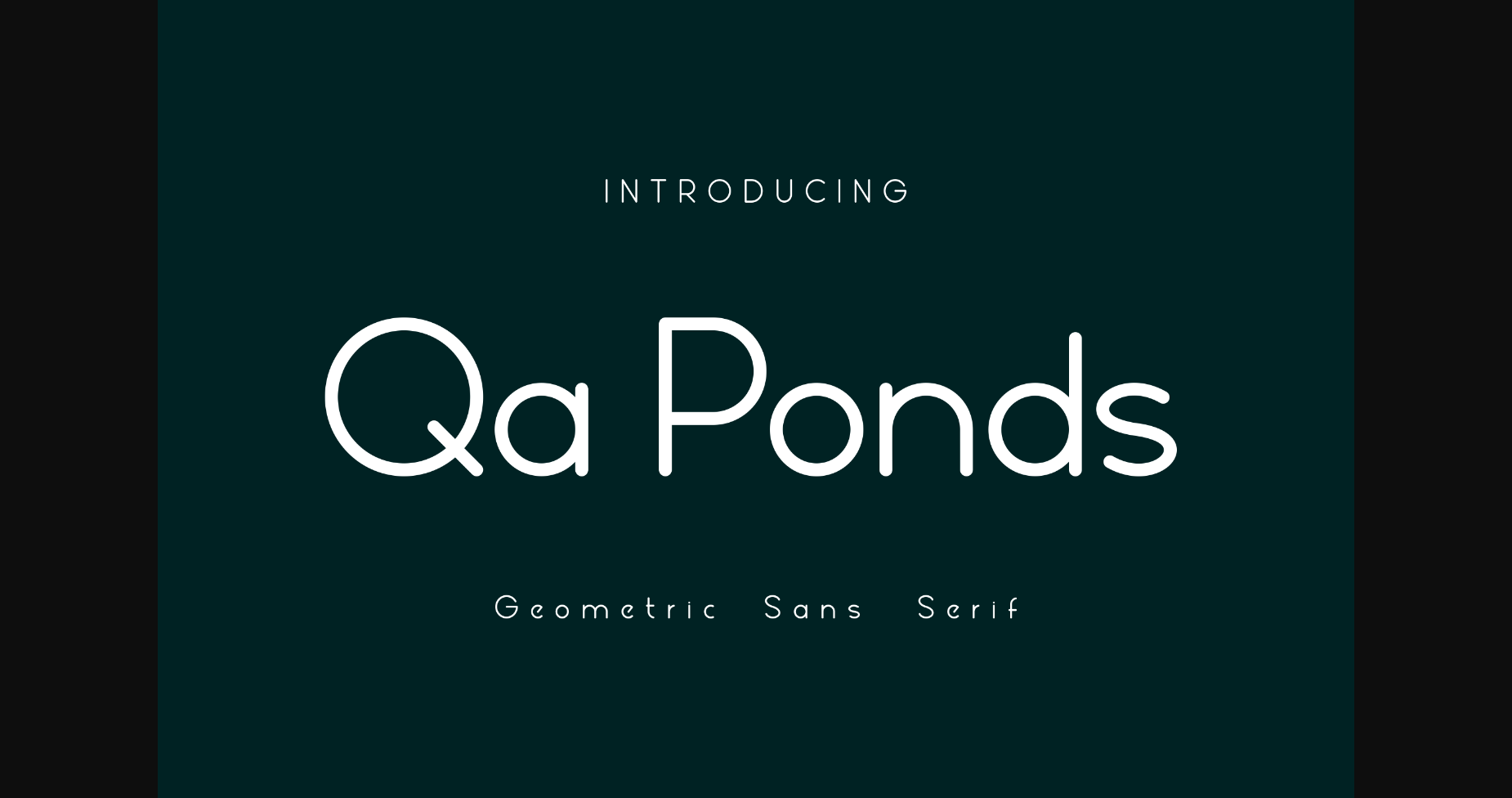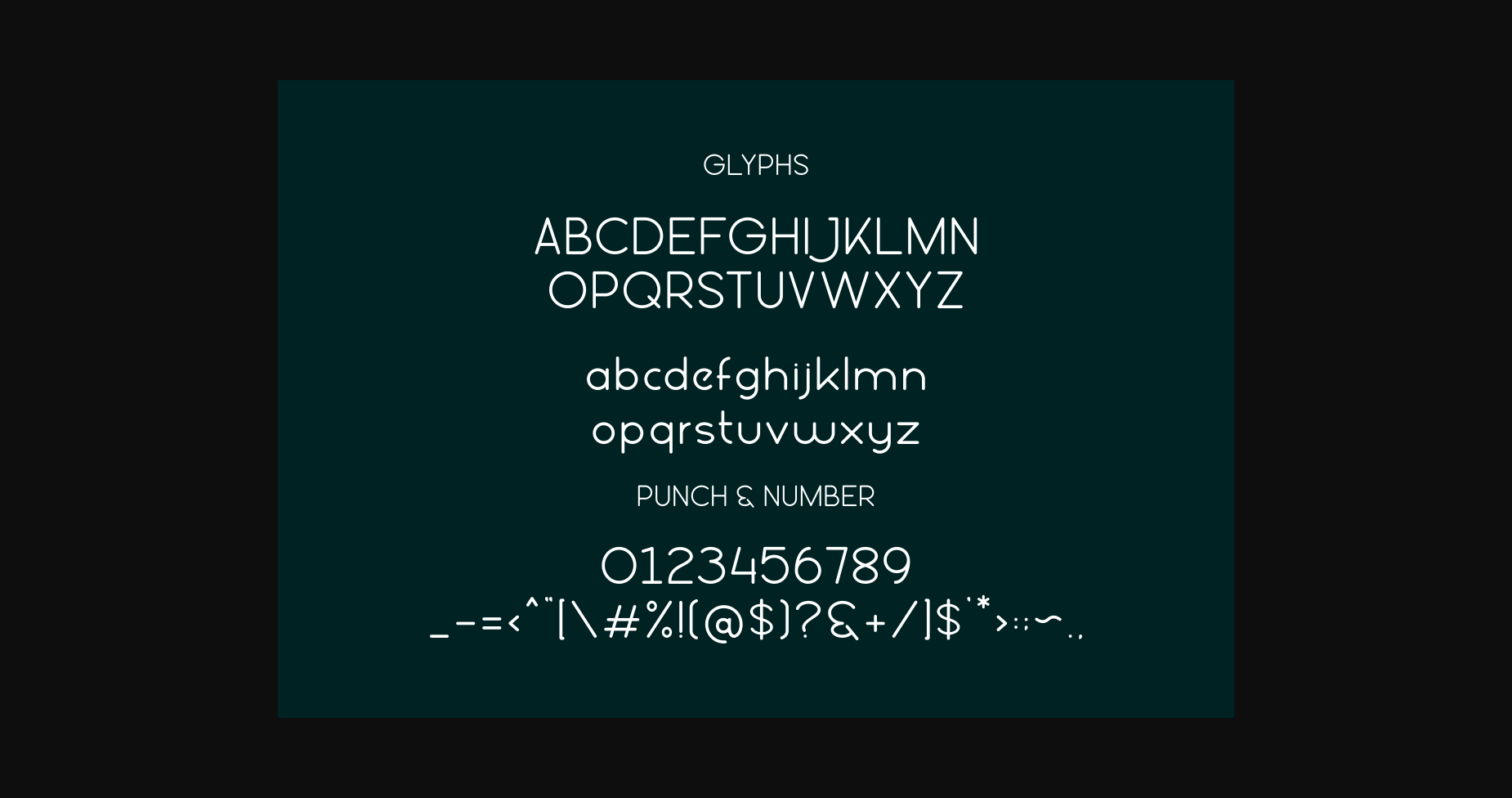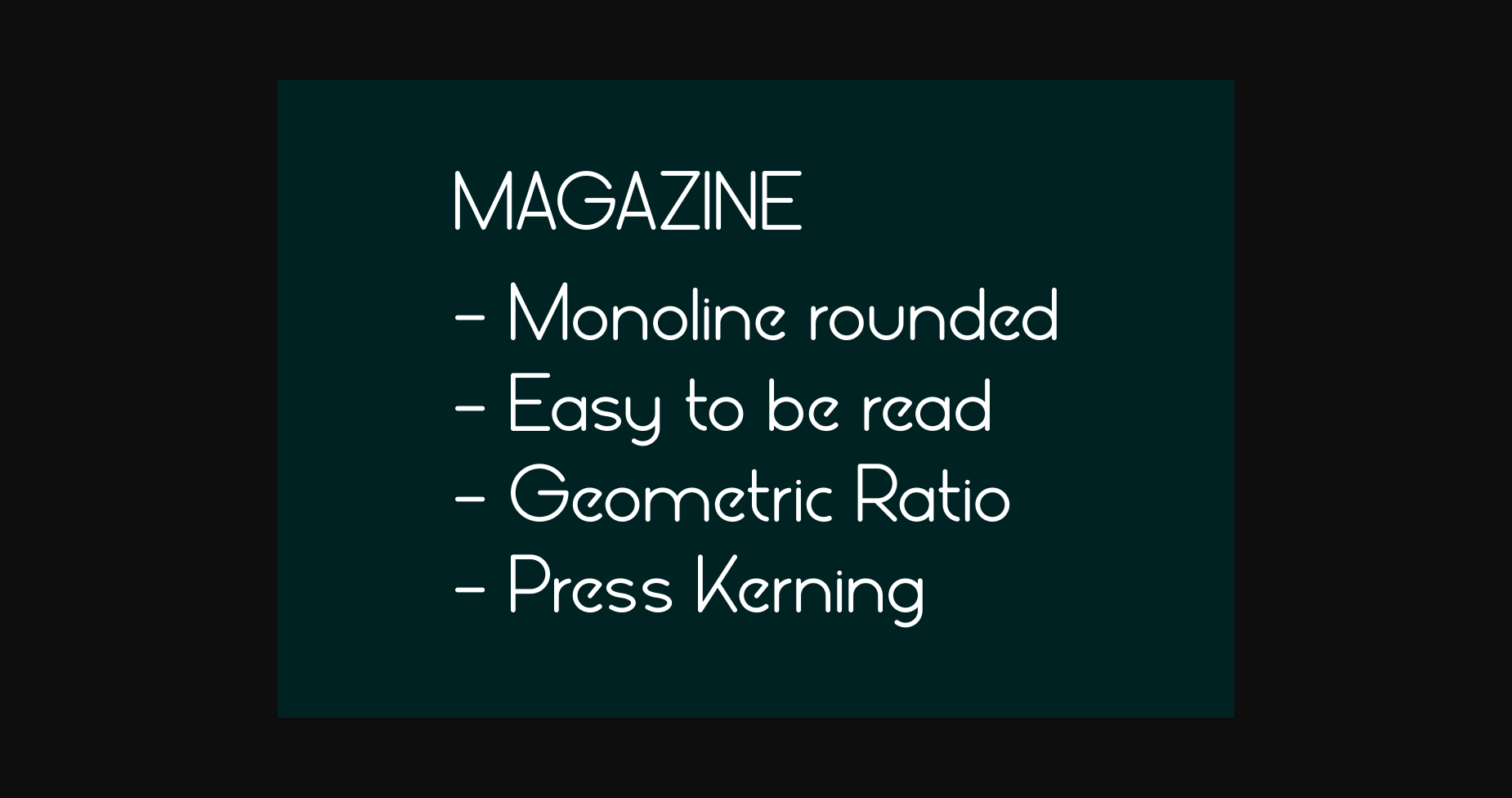
Qa Ponds is an elegant geometric Sans Serif typeface. Grab this thin regular font and use it for magazines, texts, websites, fashion, and more design projects.